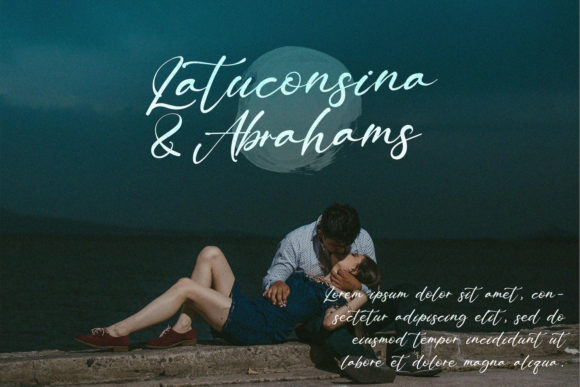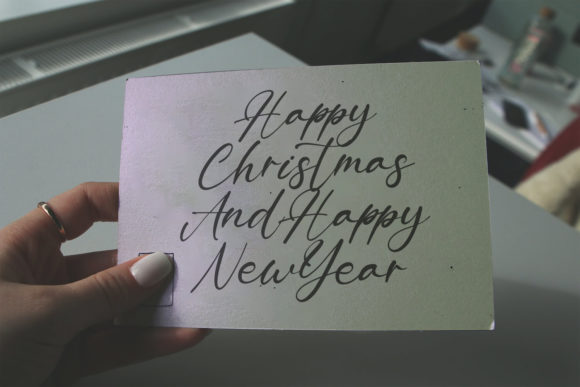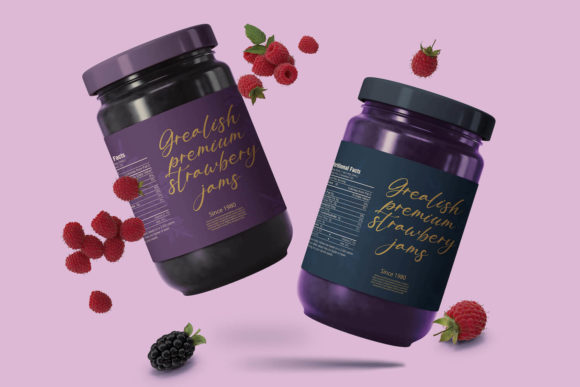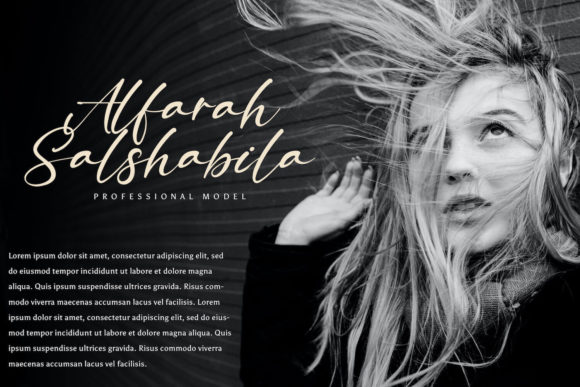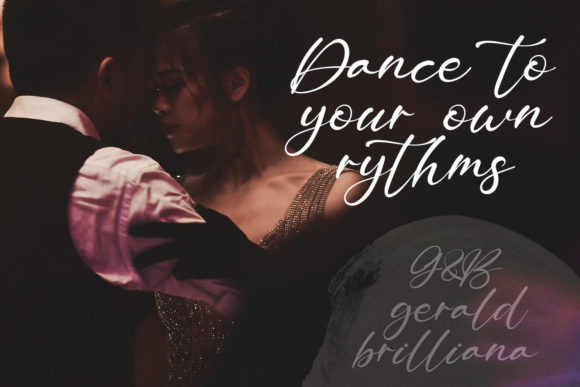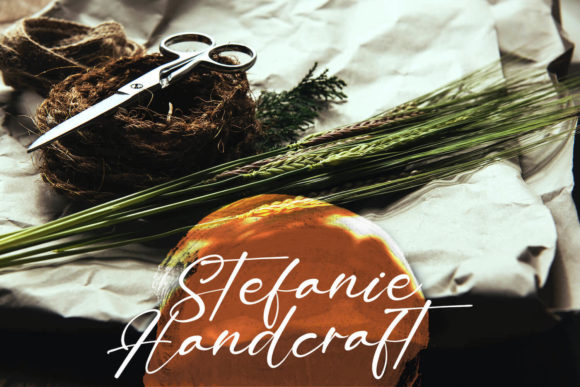
Unlock the Magic of Handwritten Style with Bitley Anthem Font
Have you ever found yourself staring at a blank page, trying to bring your creative vision to life? The spark of inspiration is there, but the words just won’t flow? That’s where the right font can make all the difference. For designers, the perfect font can be the missing piece that turns a good idea into a masterpiece.
Enter Bitley Anthem Font, a delicate, elegant, and flowing handwritten font that’s designed to elevate your creative ideas. With its beautiful and well-balanced characters, Bitley Anthem Font is the perfect addition to any design project. Whether you’re creating a logo, a brochure, or a website, this font is sure to bring your vision to life.
As a PUA-encoded font, Bitley Anthem Font gives you access to all the glyphs and swashes you need to create stunning designs. So why settle for ordinary when you can have extraordinary with the Bitley Anthem Font?
- Unique Characteristics: Bitley Anthem Font features a unique blend of modern and traditional elements, making it an ideal choice for creating eye-catching headlines and titles.
Bitley Anthem Font Review
I’ve had the chance to play around with the Bitley Anthem Font, and here’s my honest take on it.
- ✨ The font’s energetic and playful vibe is perfect for modern brand identities or projects that need a fun, youthful touch.
- ✨ Bitley Anthem Font has a wide range of language support, making it a great option for international brands or projects.
- ✨ The font’s high contrast and legibility make it easy to read, even at smaller font sizes.
- ⚠️ The font’s bold and italic styles can feel a bit inconsistent, which may affect the overall aesthetic of your design.
- ⚠️ Bitley Anthem Font may not be the best choice for projects that require a more formal or professional tone.
- ⚠️ Some users may find the font’s unique characteristics too quirky or distracting, which can be a turn-off for certain design projects.
Overall, the Bitley Anthem Font is a great option for designers who want to add some personality and flair to their projects. While it may have some limitations, it’s a solid choice for the right kind of project. With a bit of careful consideration and styling, Bitley Anthem Font can be a real showstopper.
Tip: Use the Bitley Anthem Font for headings and titles to create a bold and eye-catching visual impact.
Tip: Use the Bitley Anthem Font for creative typography and add a touch of elegance to your designs.
Tip: Use the Bitley Anthem Font for headings and titles to create a professional and cohesive visual identity.
The Bitley Anthem Font is ideal for:
- Creating bold and eye-catching headings and titles.
- Adding a touch of elegance to creative typography.
- Establishing a professional and cohesive visual identity.